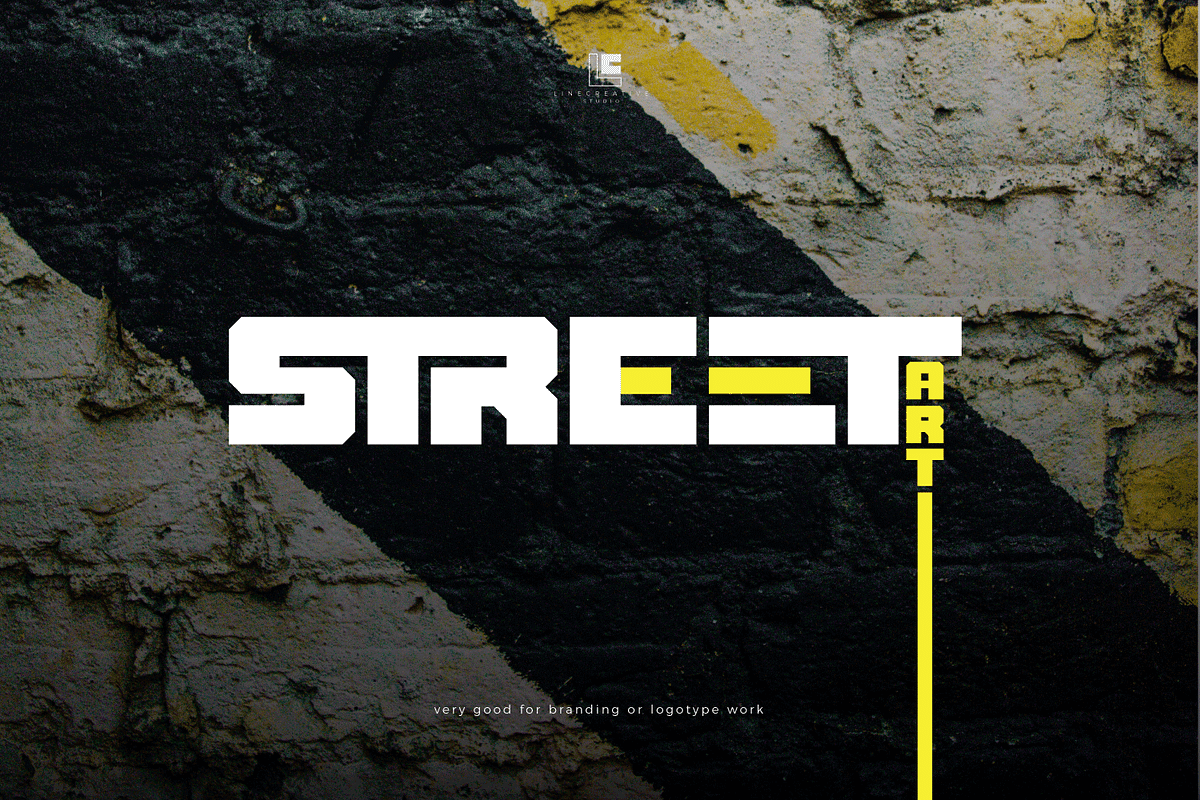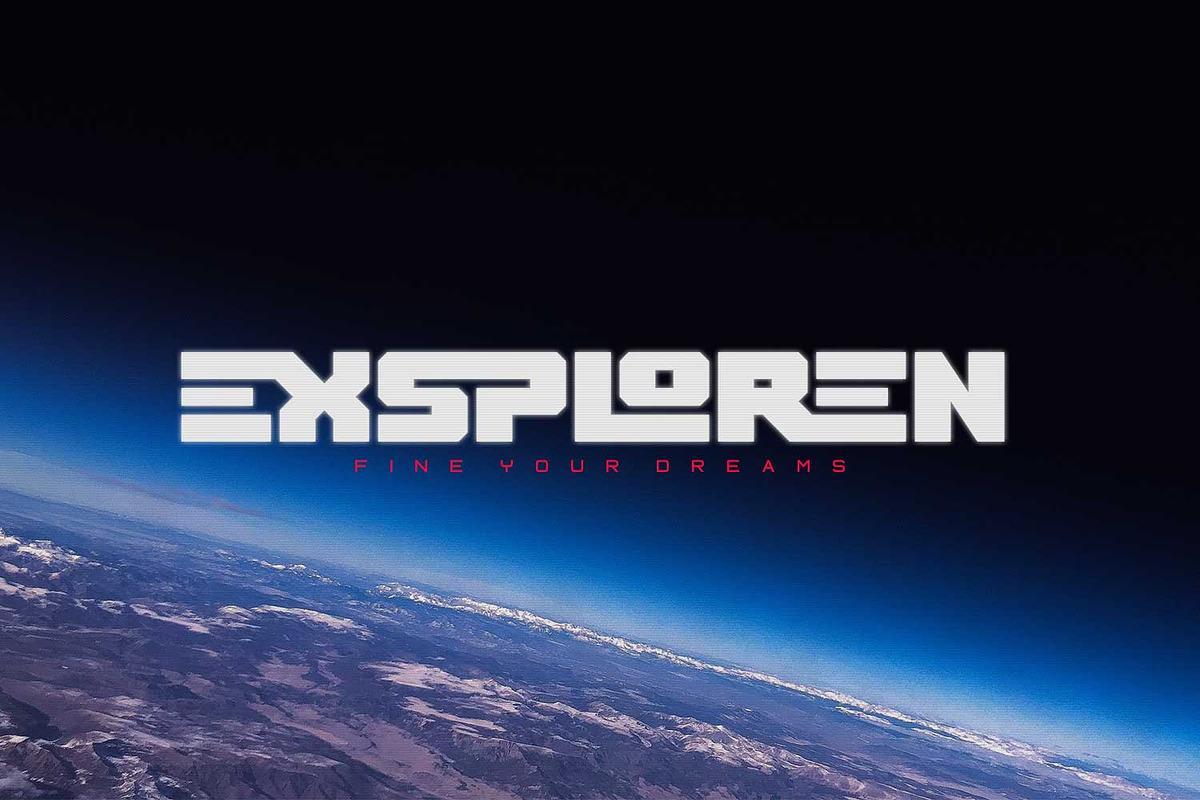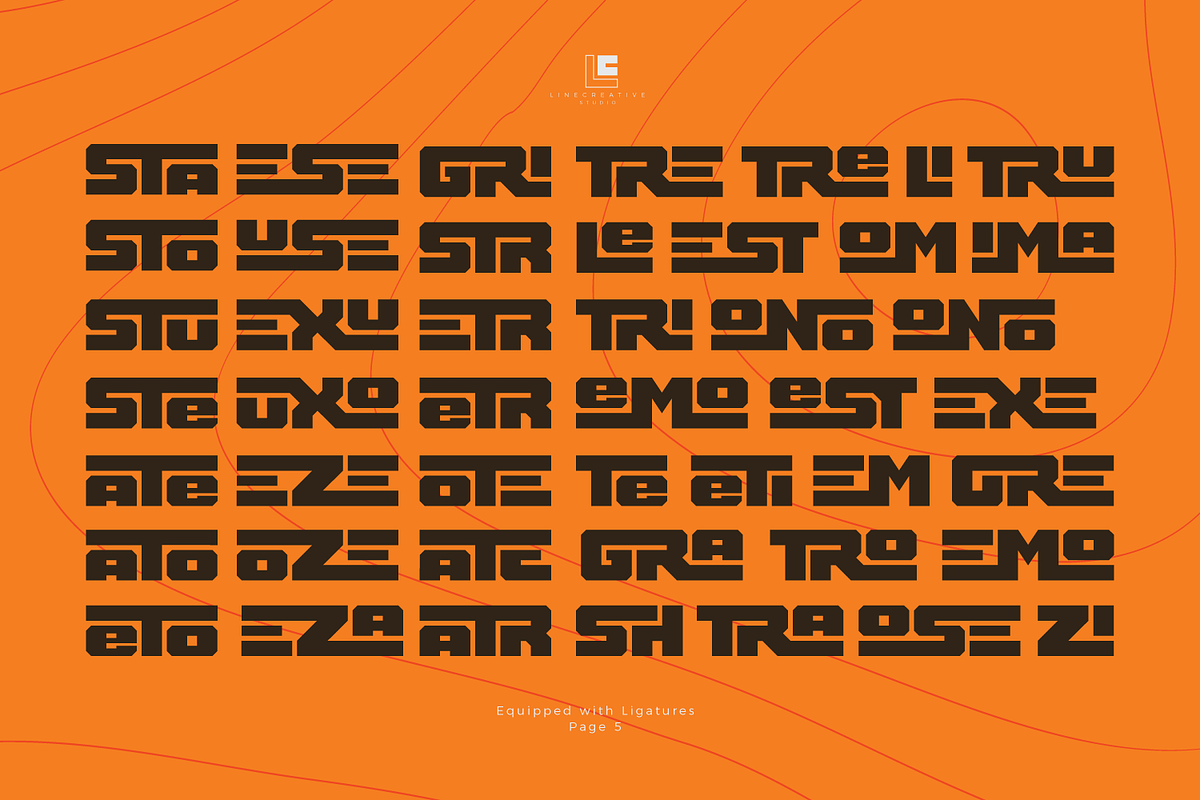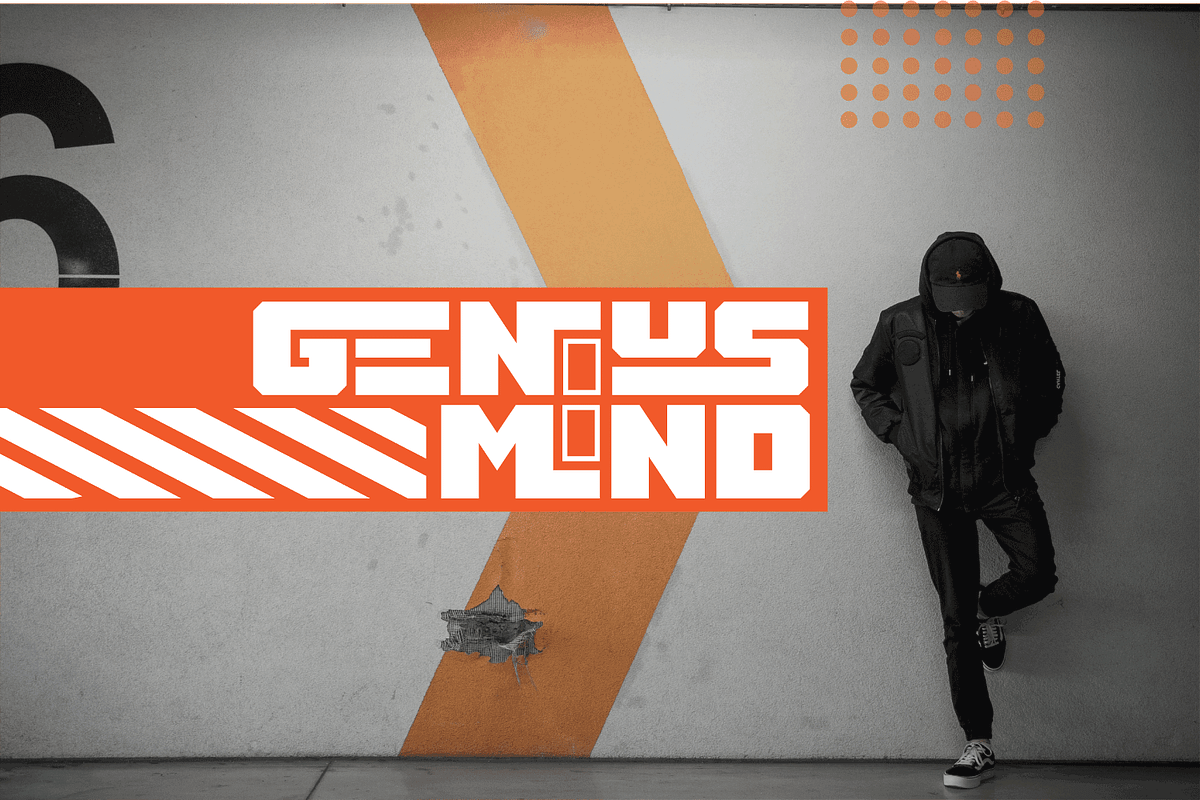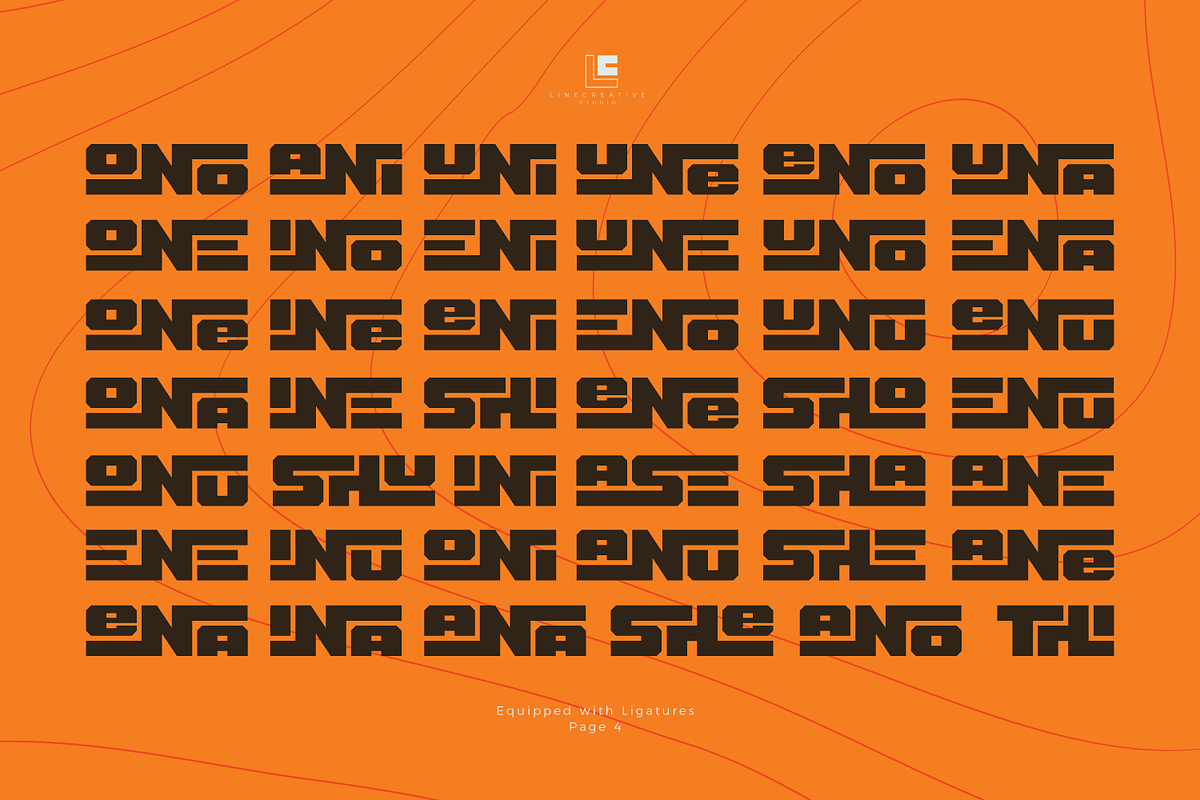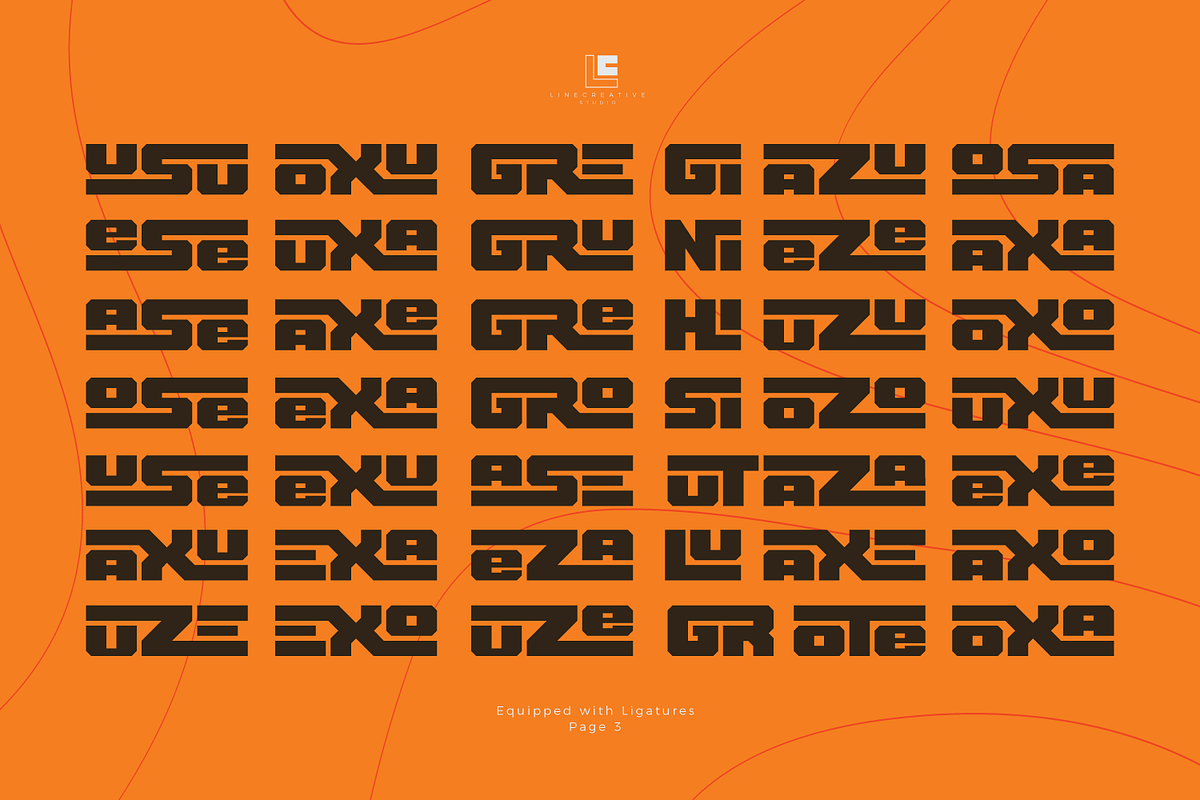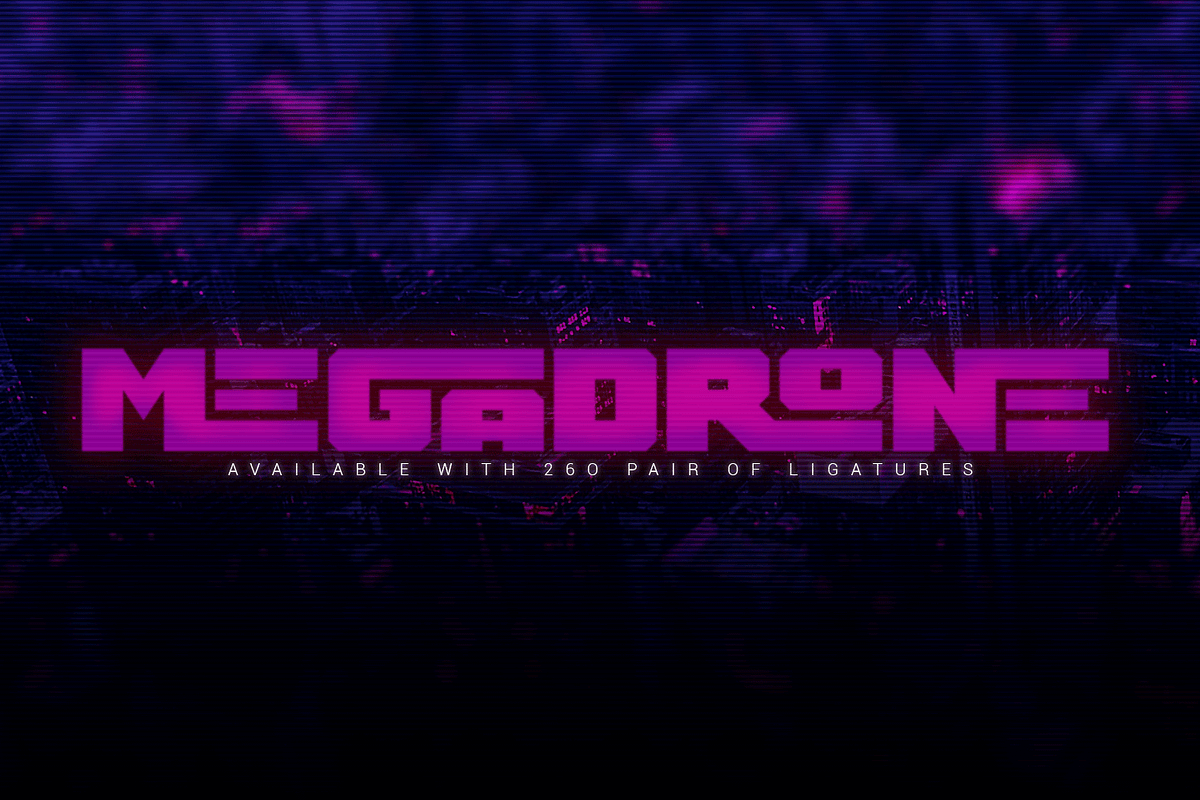
Thuner
Thuner is a chunky bold typeface perfect for any fun quirky design work! This font is equipped with ligature will be very good for your work such as posters, logos, t-shirt designs, branding,or even large scale artwork
Thuner- A clean San serif font including Upper & Lowercase characters(ALL CAPS),
Ligatures Character (260 characters)
Supports Multi linguage (Latin Western Europe), Numbers and Punctuation